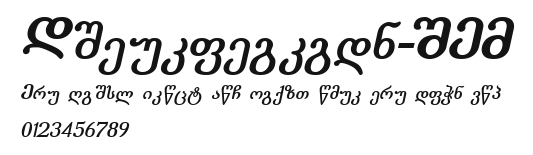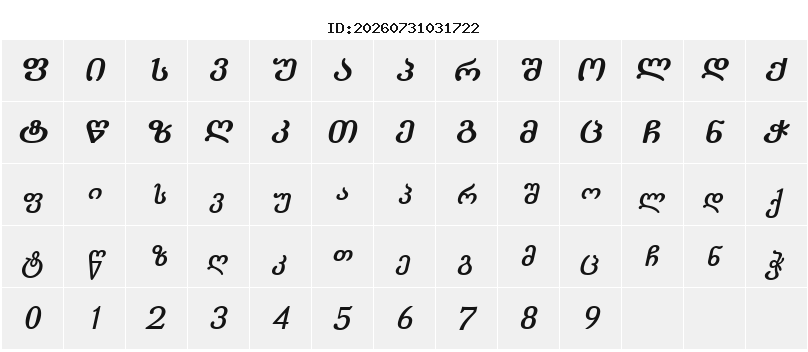
About Literaturuly-ITV.ttf
Literaturuly-ITV.ttf is a modern, elegant sans-serif font designed for ultimate readability and visual harmony. Perfect for branding, headlines, web design, and print materials.